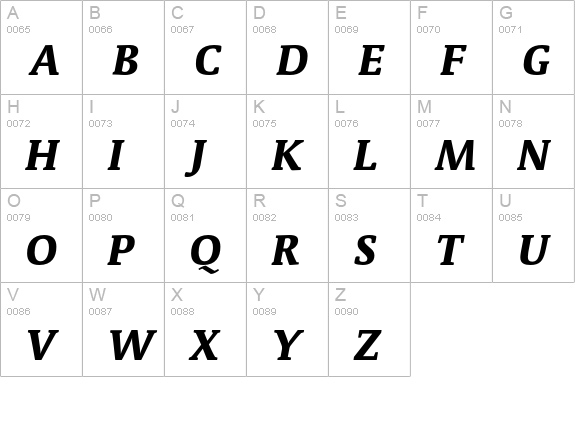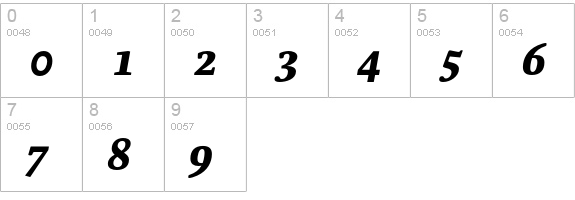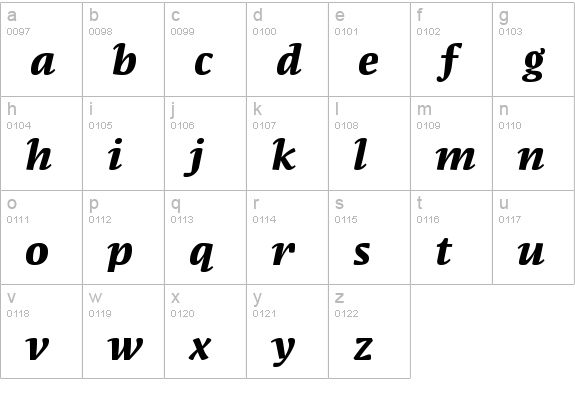
Parable-ExtraBoldItalic Font Details
Introducing Parable-ExtraBoldItalic, a font that exudes an unparalleled sense of confidence and style. With its bold and italicized characters, this font commands attention and leaves a lasting impression. Designed for those who dare to stand out from the crowd, Parable-ExtraBoldItalic is the perfect choice for projects that require a touch of sophistication and individuality. Whether it's creating eye-catching headlines, designing impactful logos, or crafting stunning invitations, this font offers endless possibilities. The sleek and modern design of Parable-ExtraBoldItalic effortlessly combines elegance with a contemporary edge. Its strong and assertive letterforms are carefully crafted to ensure legibility, making it suitable for both print and digital applications. Each character is meticulously designed to maintain consistency and harmony, resulting in a seamless and professional look. What sets Parable-ExtraBoldItalic apart is its availability as a freely downloadable font. At FontsMarket.com, you can easily access this remarkable typeface without any cost. This accessibility allows designers, creators, and enthusiasts to explore and utilize this font without limitations, making it a valuable asset for any project. So why wait? Unlock your creative potential with Parable-ExtraBoldItalic and elevate your designs to new heights. Download this font today from FontsMarket.com and experience the freedom to bring your vision to life.